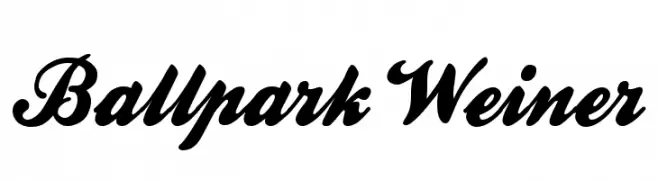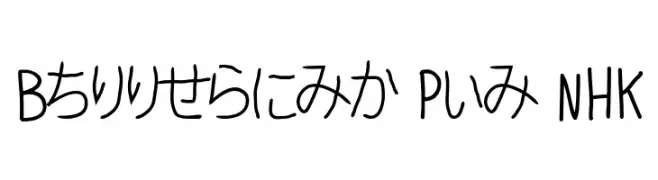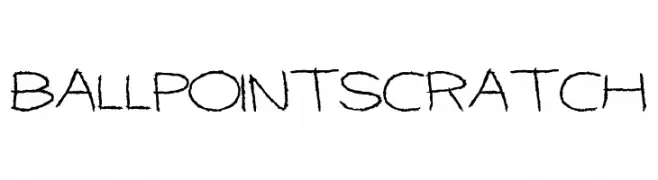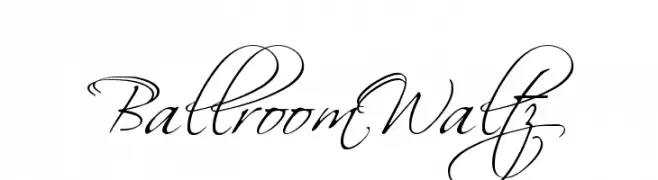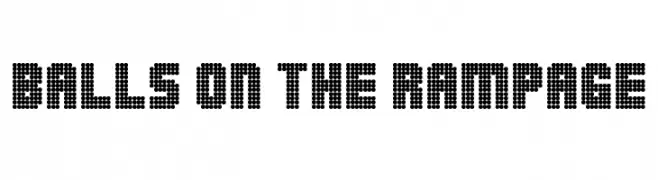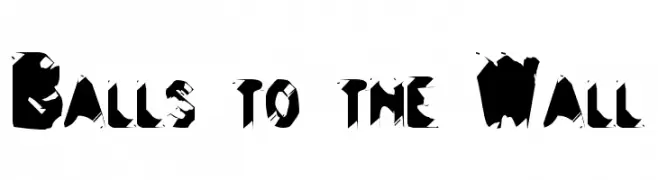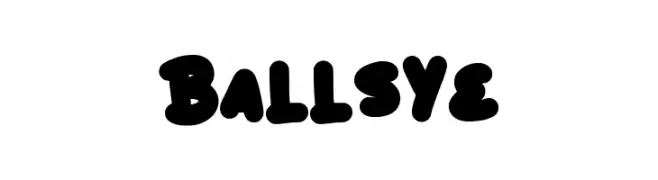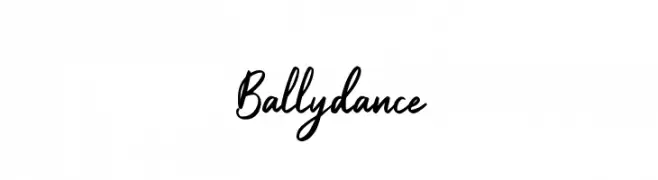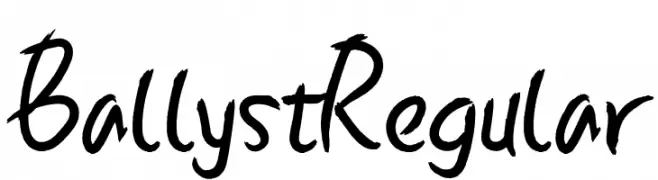
A bold, flowing script font with connected letterforms and elegant curves.
A playful, handwritten-style font with smooth, rounded characters.
A casual, handwritten-style font with a playful and informal appearance.
A casual, handwritten-style font with smooth, medium-thick strokes.
A lively, handwritten-style font with dynamic, elongated characters.
A playful, handwritten script font with smooth, flowing characters.
A fluid, handwritten-style font with a personal touch.
A casual, elegant handwritten script with fluid, interconnected letters.
An elegant, flowing script font with thin, elongated strokes and graceful curves.
A decorative sports-themed icon font featuring various balls and equipment.
A bold, modern font with thick, uniform strokes for impactful design.
A bold, dotted font with a pixelated, digital appearance.
A bold, distressed font with a grunge-like, graffiti-inspired style.
A dynamic and elegant script font with flowing, slender letterforms.
A bold, playful font with thick, rounded strokes and a bubbly appearance.
A bold, playful handwritten font with rounded, irregular letterforms.
A dynamic, modern font with elongated, slanted characters and a bold presence.
A lively handwritten font with fluid strokes and a casual elegance.
A dynamic, handwritten-style font with a playful and energetic character.
A lively handwritten font with fluid strokes and dynamic character.
A dynamic handwritten font with fluid, expressive strokes and a playful style.
A bold, playful handwritten font with fluid strokes and a modern feel.
A dynamic handwritten font with fluid strokes and a casual elegance.
A bold, handwritten font with dynamic and fluid characters.
A playful, handwritten script font with dynamic, flowing lines.
A bold, playful handwritten font with dynamic and flowing letterforms.
A bold, expressive handwritten font with dynamic strokes and a playful style.
A bold, expressive handwritten font with fluid strokes and a playful style.
An elegant, flowing script font with interconnected letterforms and artistic curves.
A flowing, cursive script font with elegant, connected characters.